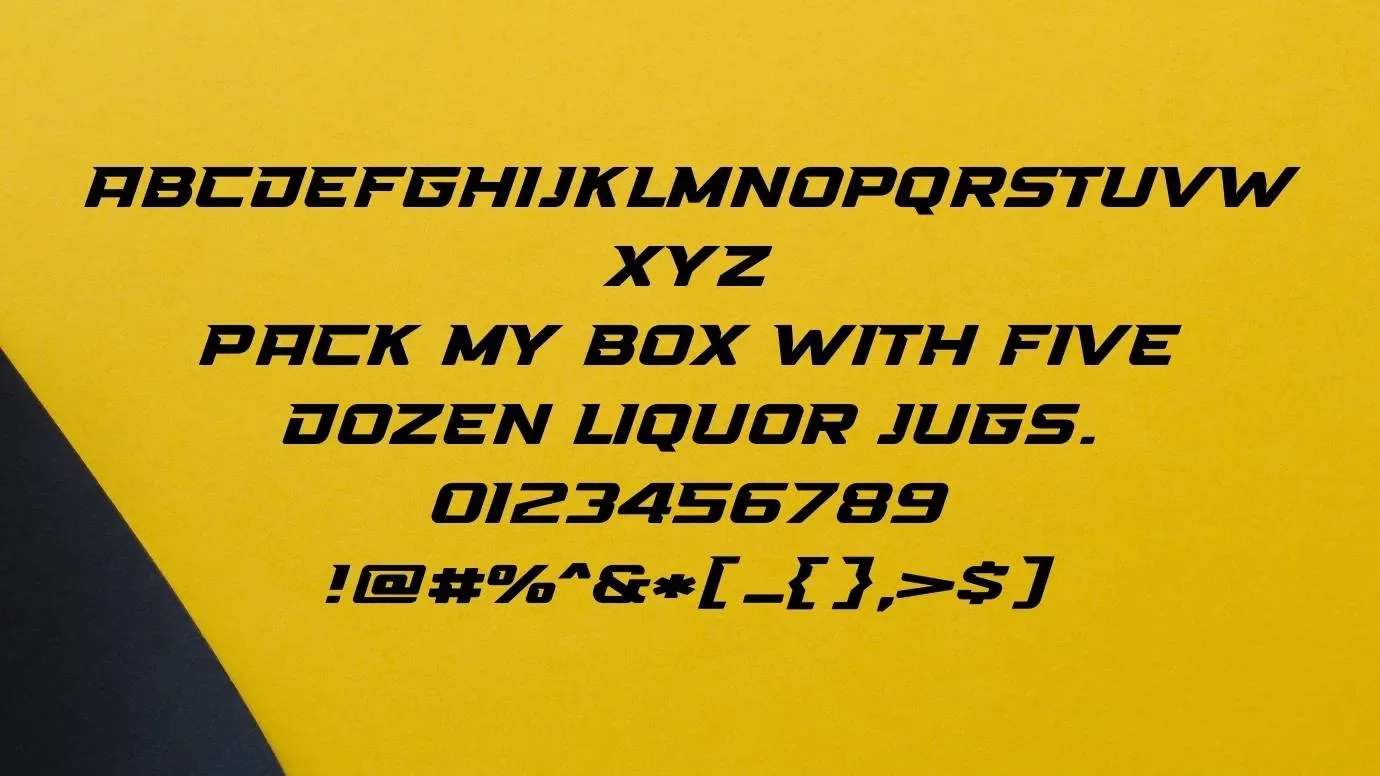
Here, We are going to discuss about a new font known as High-Speed Font that comes in the display category in the font family. This great font has bold and italic shape characters that are perfect for increasing the readability of any content. This amazing font was designed by 177Studio.
This font has three weights and various styles. It is also ideal for stylish heading purposes. Due to the attractive bold italic look of this font, the demand for this font is increasing day after day in the design market. It comes in more than 100 unique glyphs along with two thousand units of one em.
It is best for the head and footer purposes of any website’s front page. This beautiful typeface has custom icons, lowercase letters, punctuations, and symbols. It is perfect for pairing with tecate font that helps you for creating modern designs.
Reason to Use High Speed Font
Due to the unique and many features of this font, the usage of this font is so high. You can use this gorgeous typeface for animated logos, theme designs, video template designs, comic covers, and brochures layout. It is suitable for use in eBook cover designs, hat designs, T-shirt designs, and other clothes design projects.
You can use this display font for posters, images, and banner design purposes. Many famous YouTubers utilize this font for name designs, titling purposes, and heading purposes of their videos. You can make its combination with roblox font for different unique design projects.
You can also pick this font and use it for advanced projects due to its advanced features. This interesting typeface is also perfect for text designing purposes and you can also use its online generator tool for this purpose.
High Speed Font Family (Includes Total 03 Types)
- High-Speed Regular
- High Speed Bold
- High Speed Italic